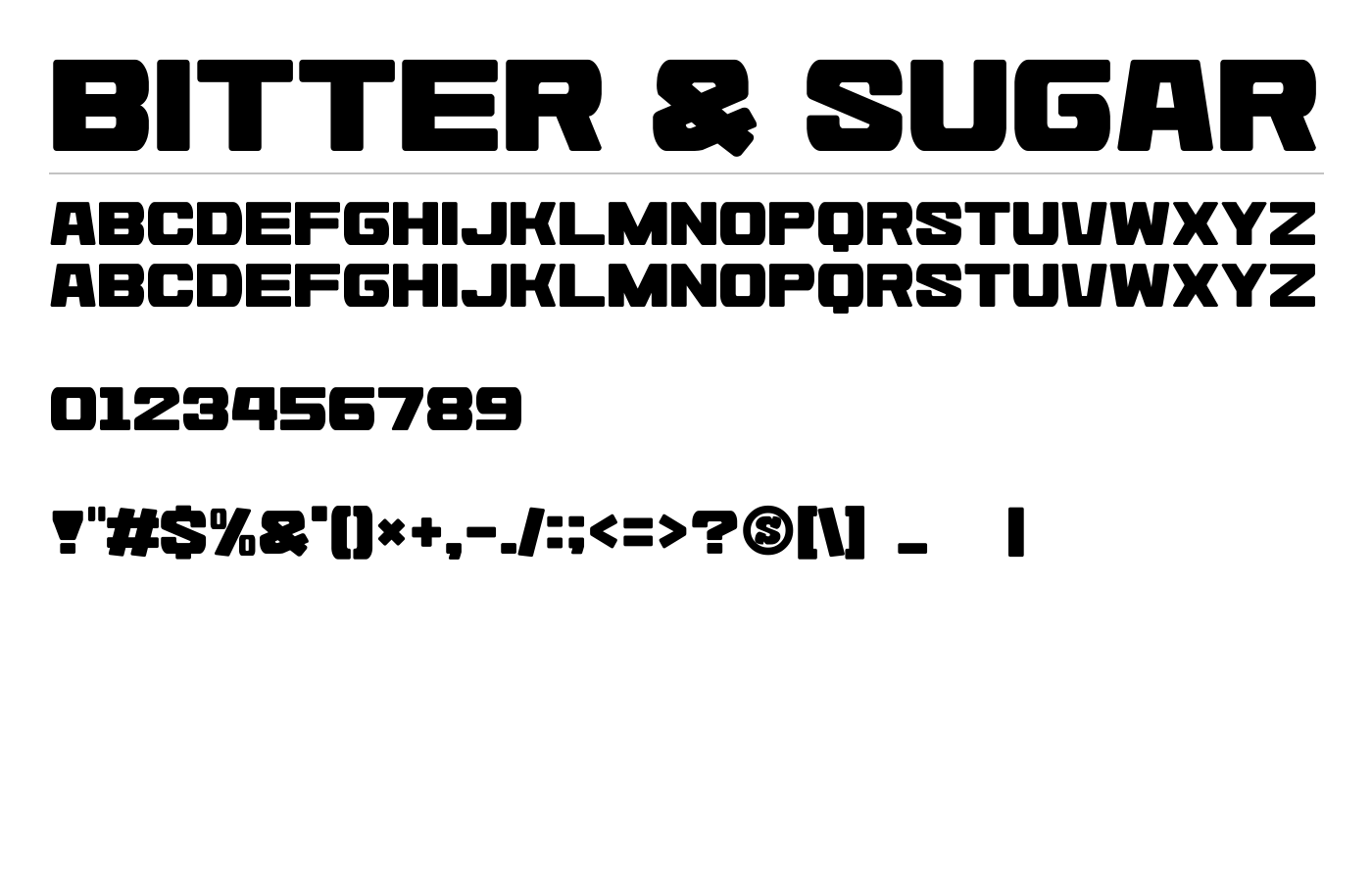
Bitter & Sugar is a bold, sans serif typeface with a strong, geometric feel and sturdy, blocky letterforms that command attention. Its wide, heavy strokes and sharp corners give it a modern and industrial vibe, making it ideal for impactful headlines, logos, and branding that need a confident and contemporary presence. This font works especially well in design contexts where clarity and boldness are essential, such as posters, packaging, and editorial headers.
Bitter & Sugar Font